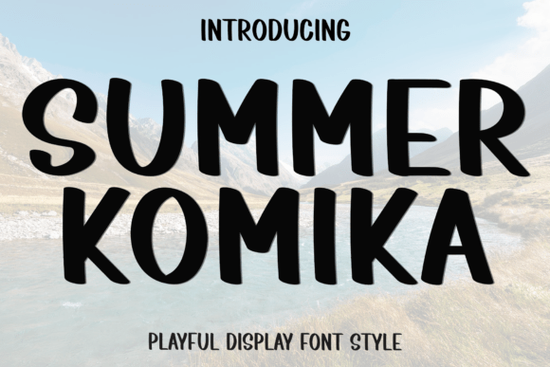
Looking for a font that brings warmth and joy to your holiday designs? Summer Komika Font is a cheerful, decorative typeface perfect for seasonal projects. With its playful curves and festive flair, it captures the magic of summer holidays in a way that feels both nostalgic and fresh. Whether you're creating greeting cards, gift tags, or print-on-demand items, this font adds personality without overwhelming your layout.
What makes Summer Komika Font stand out?
Unlike standard fonts, Summer Komika includes unique decorative elements and whimsical details that give your text a handcrafted feel. It’s ideal for anyone who wants to add a personal touch to their designs especially during the holiday season. The font’s PUA (Private Unicode Area) encoding means all special glyphs and ligatures are easy to access right from your keyboard. No complex workarounds or extra steps needed.
You’ll find it especially useful when designing:
- Handwritten-style greeting cards
- Gift labels and packaging inserts
- Seasonal social media graphics
- Printed merchandise like mugs, tote bags, and stickers
- Invitations for summer-themed events
How can I use this font in my creative projects?
Because of its friendly, inviting look, Summer Komika works well across multiple formats. Use it as a headline font for posters or digital ads, or pair it with a clean sans-serif for body text to balance the design. The font scales beautifully from small print to large banners, making it flexible for both digital and physical outputs.
If you’re into crafting or selling handmade goods, this font helps make your branding feel more authentic and heartfelt. Many creators on Creative Fabrica use similar display fonts to build cohesive themes like combining Loveberry Bold for emphasis and Summer Komika for charm.
Since it’s PUA encoded, you don’t need to worry about missing characters or complicated shortcuts. Just type normally, and the special flourishes appear naturally. This is a big plus if you're working under time pressure or want to focus on creativity instead of technical fixes.
While decorative fonts like Summer Komika are eye-catching, using them too much can distract from your message. Try limiting it to headlines, titles, or accent words. Pair it with simpler fonts for body text to maintain clarity.